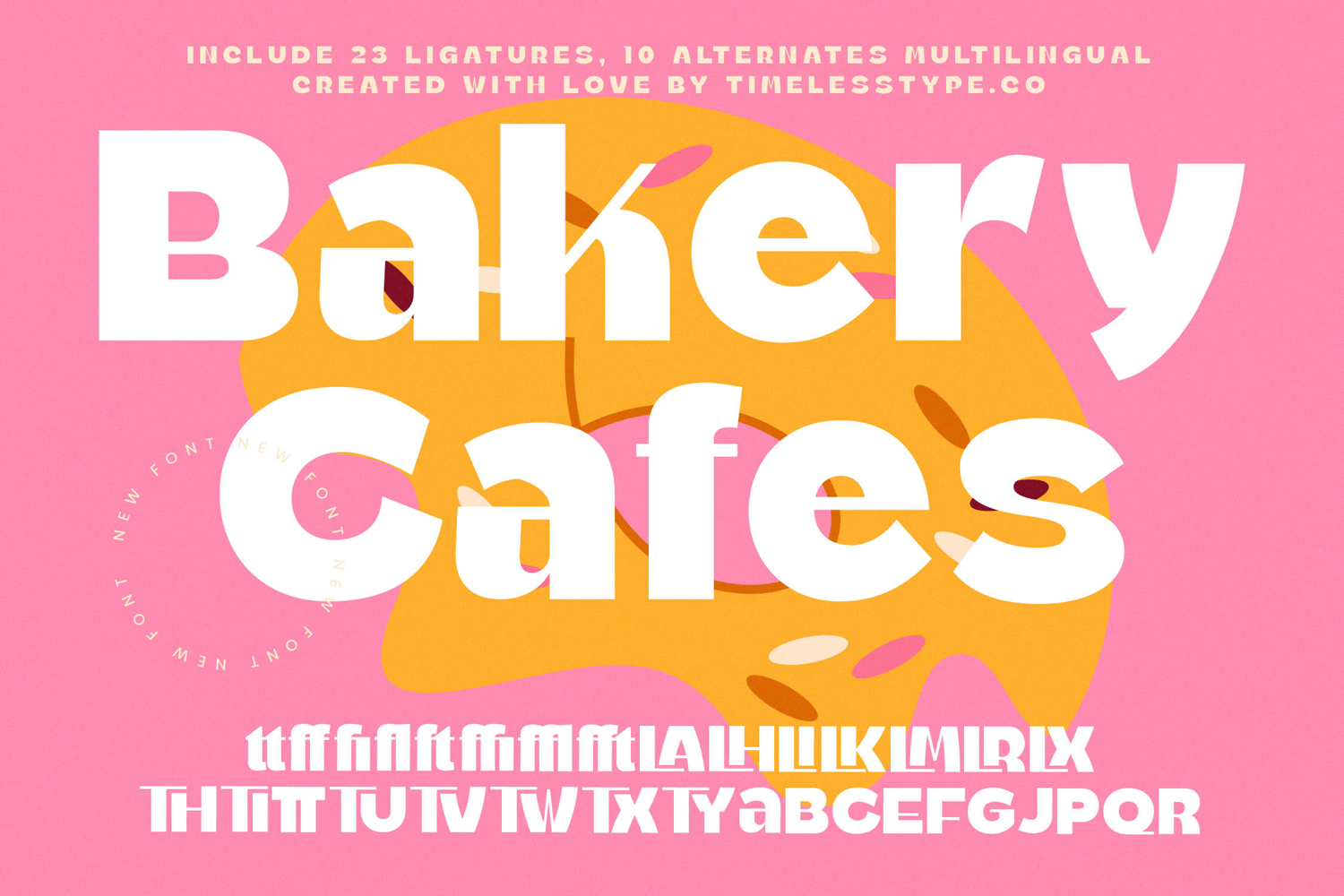
Bakery Cafes - Modern Sans Serif
Bakery Cafes is a modern sans serif display font that radiates freshness, boldness, and playful energy. With its thick strokes, clean geometry, and smooth curves, this typeface creates a friendly yet impactful presence, making it perfect for designs that aim to be approachable and memorable. Designed with 23 ligatures and 10 alternates, Bakery Cafes gives designers the flexibility to create unique and dynamic typography that stands out in both print and digital formats.
This font is ideal for headline typography, where its bold letterforms capture attention instantly across posters, menus, banners, and editorial layouts. In branding and logo design, Bakery Cafes communicates warmth and creativity, making it a strong choice for cafes, bakeries, food brands, and lifestyle businesses that want to showcase charm and reliability. Its bold, rounded style also makes it an excellent choice for packaging design, especially for baked goods, beverages, and artisanal products where typography must feel inviting and delicious.
Bakery Cafes also excels in advertising campaigns, event posters, and social media graphics, where its ligatures and alternates bring variety and originality. For editorial spreads, merchandise, and lifestyle branding, the font adds a modern, approachable character, ensuring typography becomes a central part of the visual storytelling.
With multilingual support, Bakery Cafes adapts seamlessly across international markets, making it versatile for global projects.
Ultimately, Bakery Cafes is more than just a display sans serif—it is a design companion for fun, bold, and inviting storytelling. Whether used in headlines, branding, packaging, or advertising, it ensures every project radiates charm, energy, and unforgettable modern style.